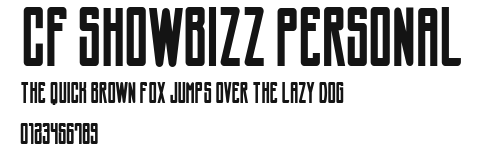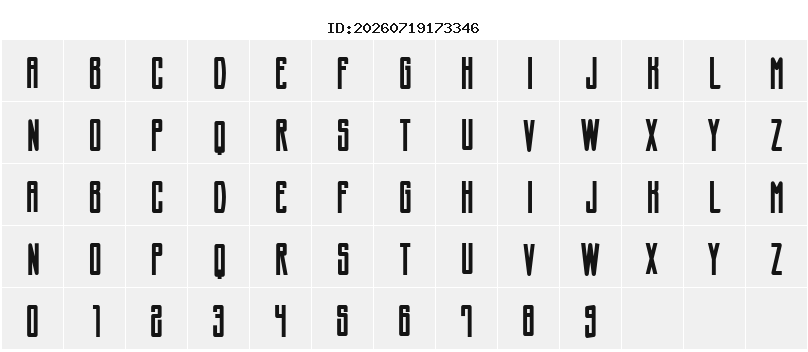
• Font Name: CF Showbizz PERSONAL
• Full Font Name: CF Showbizz PERSONAL Regular
• Designer: Steve Cloutier
• Manufacturer: Cloutierfontes
• Description: CF Showbizz PERSONAL Regular is a font by Cloutierfontes, designed by Steve Cloutier in 2016.
CF Showbizz PERSONAL.ttf is a modern, elegant sans-serif font designed for ultimate readability and visual harmony. Perfect for branding, headlines, web design, and print materials.